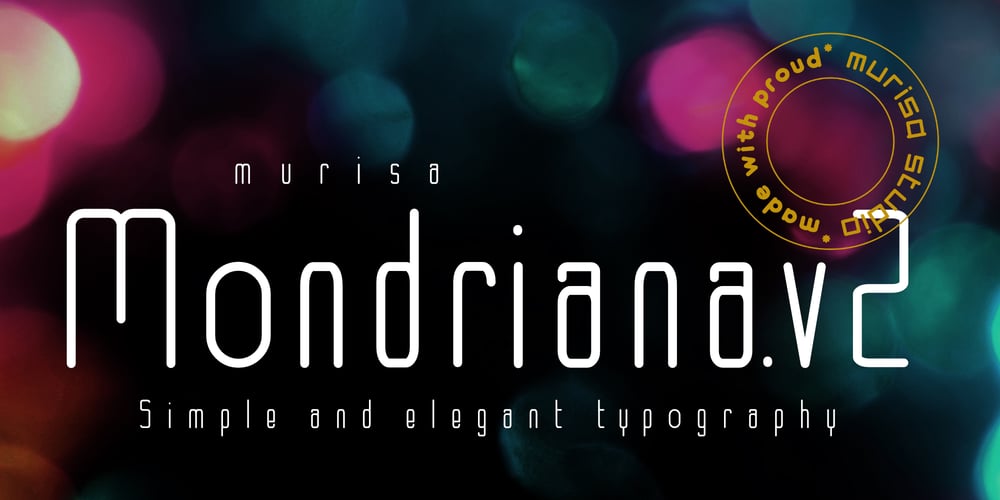
Murisa Mondriana Font Family was designed by Lili and published by Murisa Studio. Murisa Mondriana contains 4 styles and family package options. Mondriana is a cool and modern looking sans serif font. It will elevate a wide range of crafting ideas, from cards, to branding, labels and much more.Add it confidently to your favorite creations and let yourself be amazed by the outcome generated.